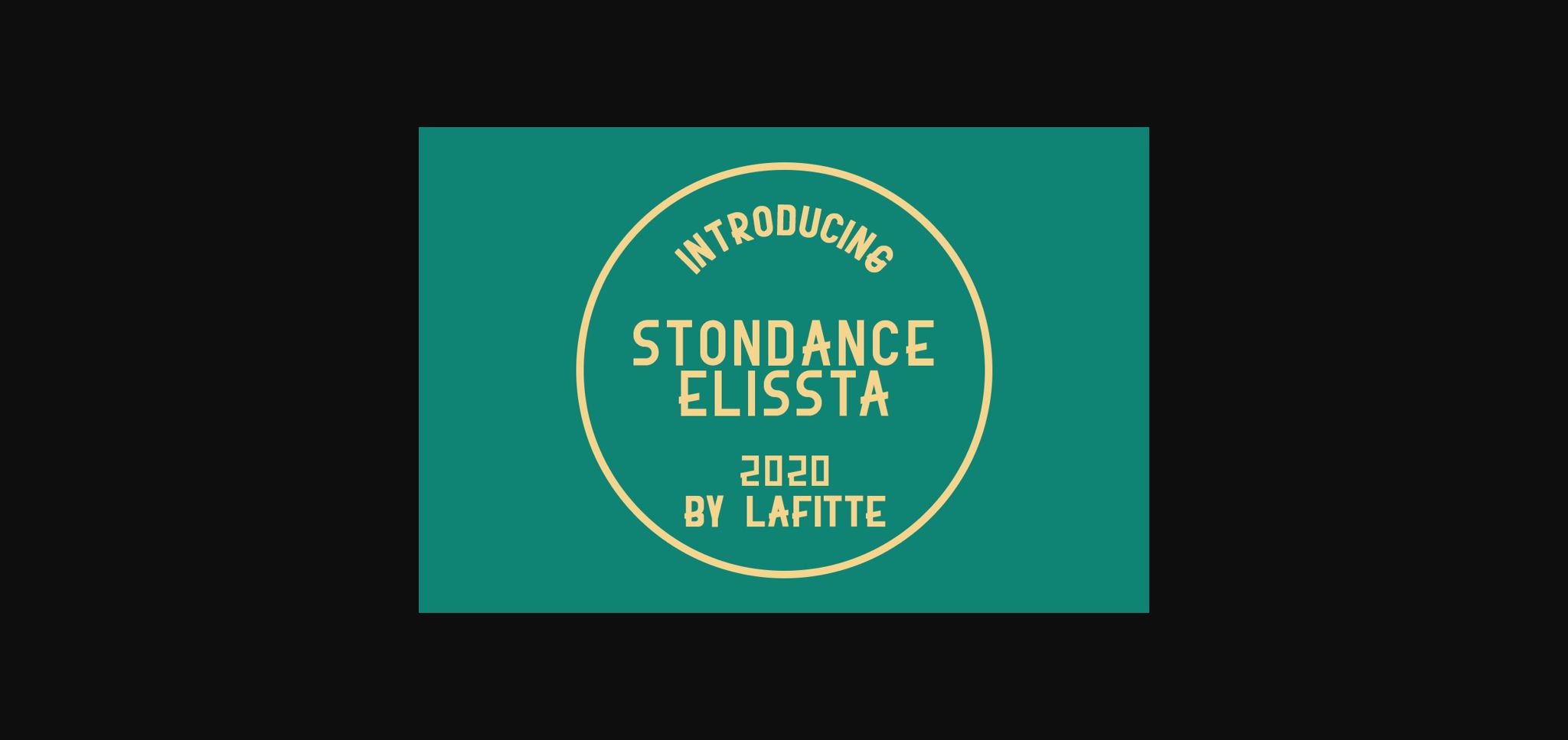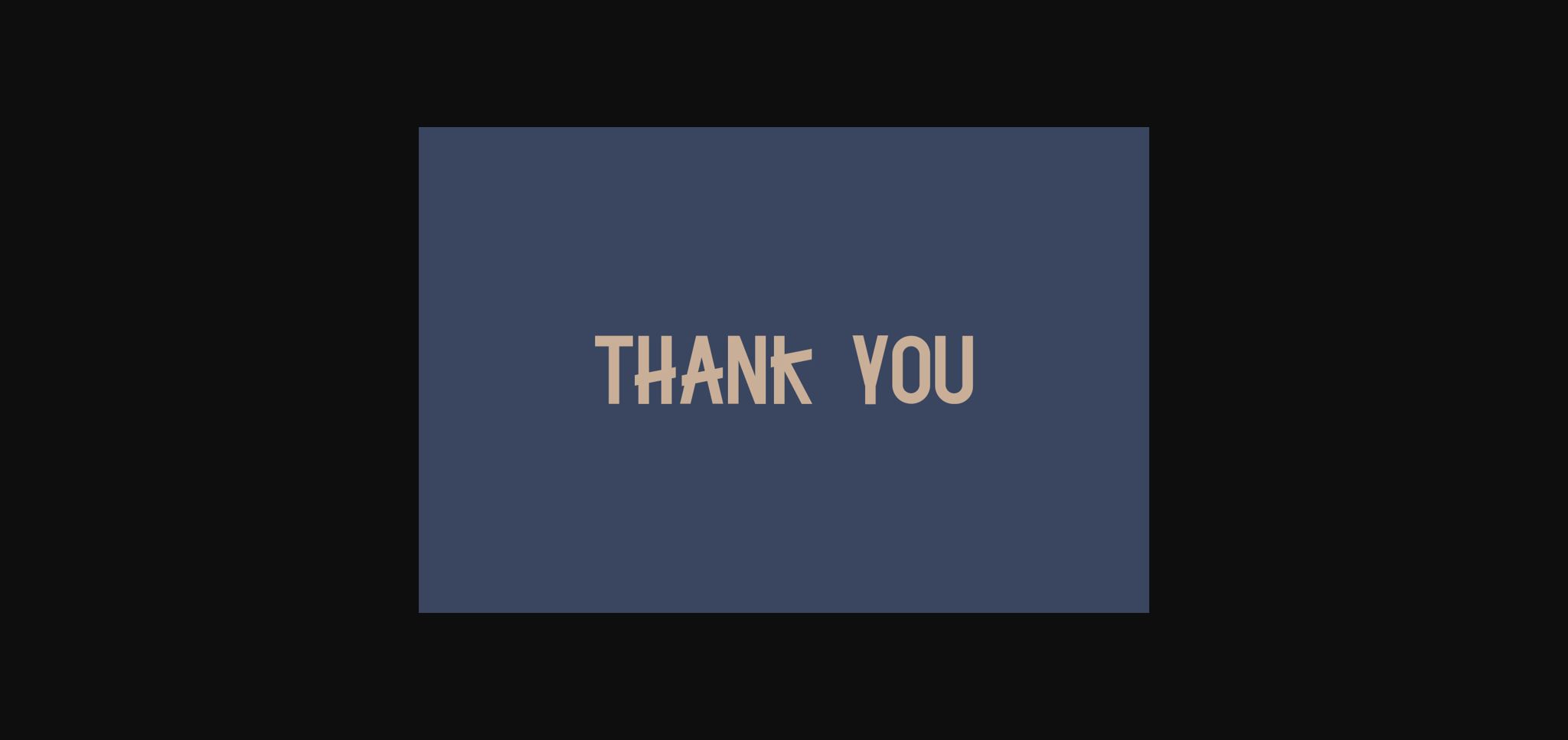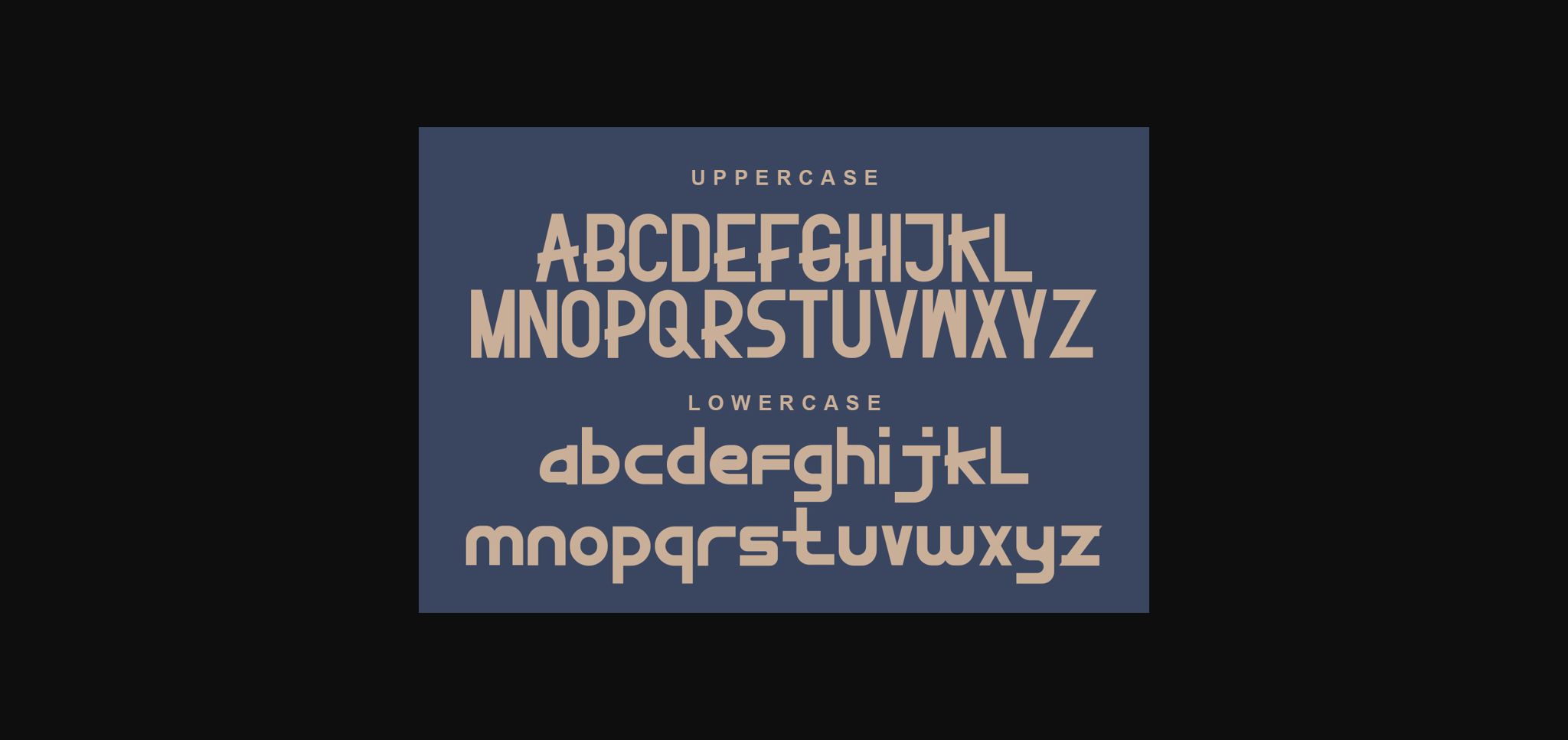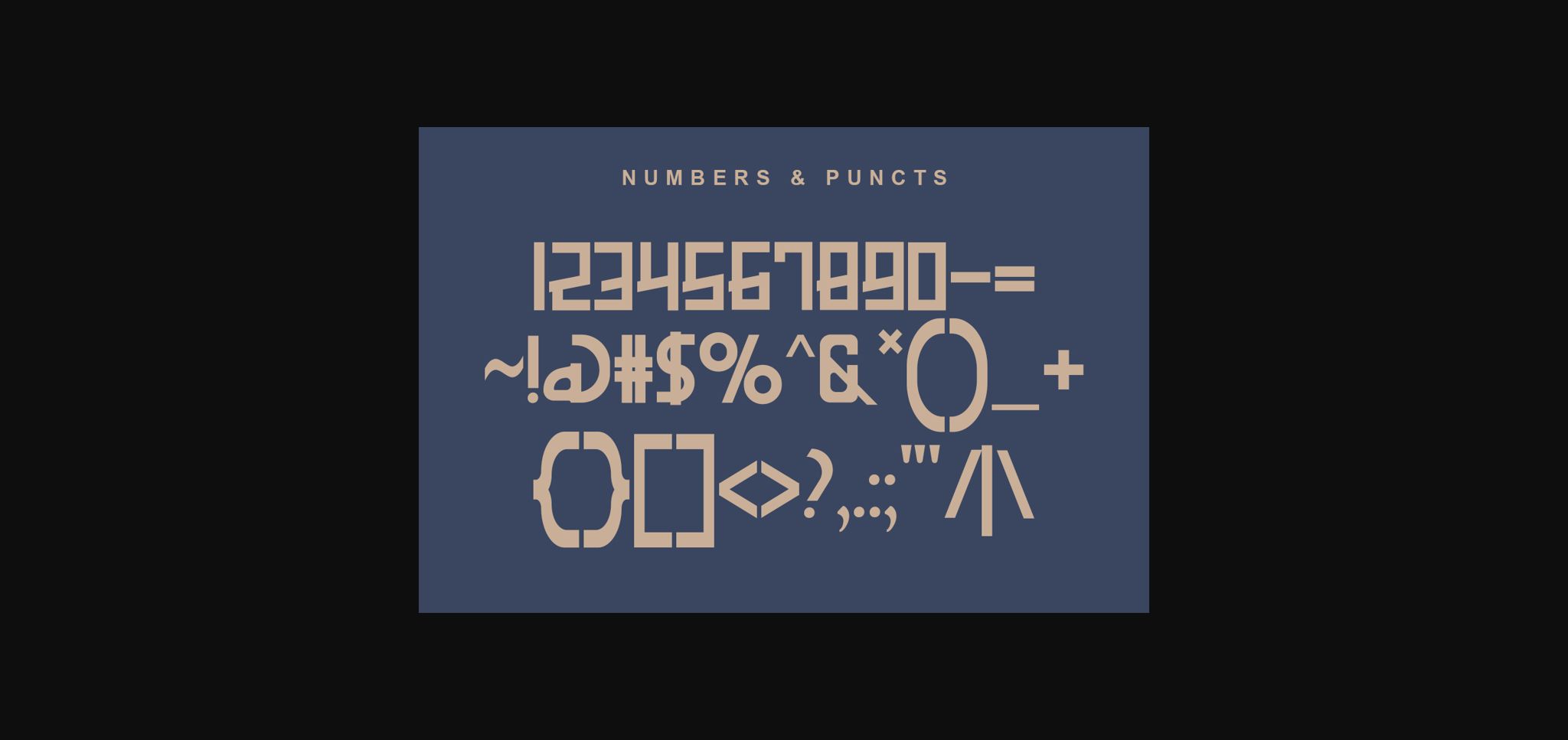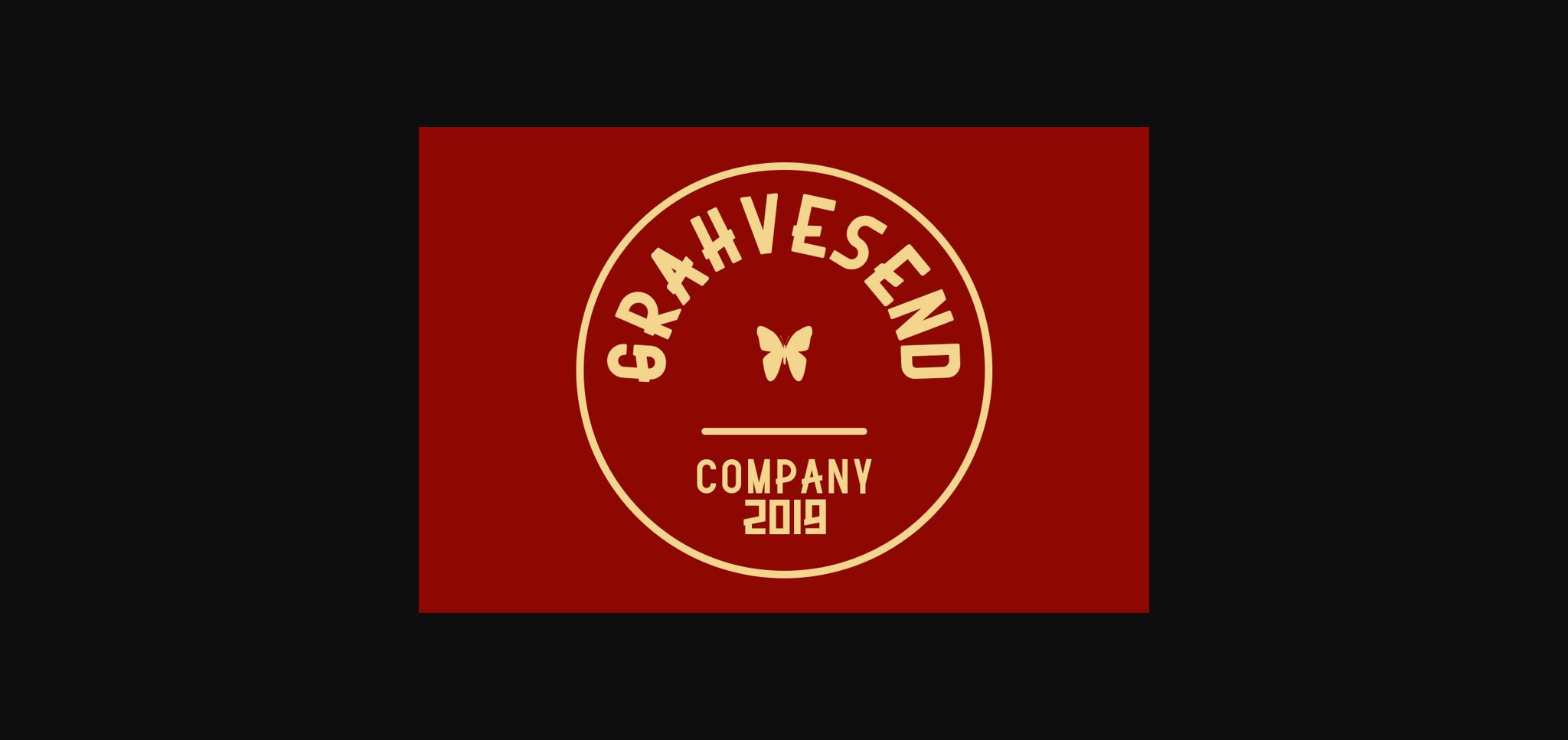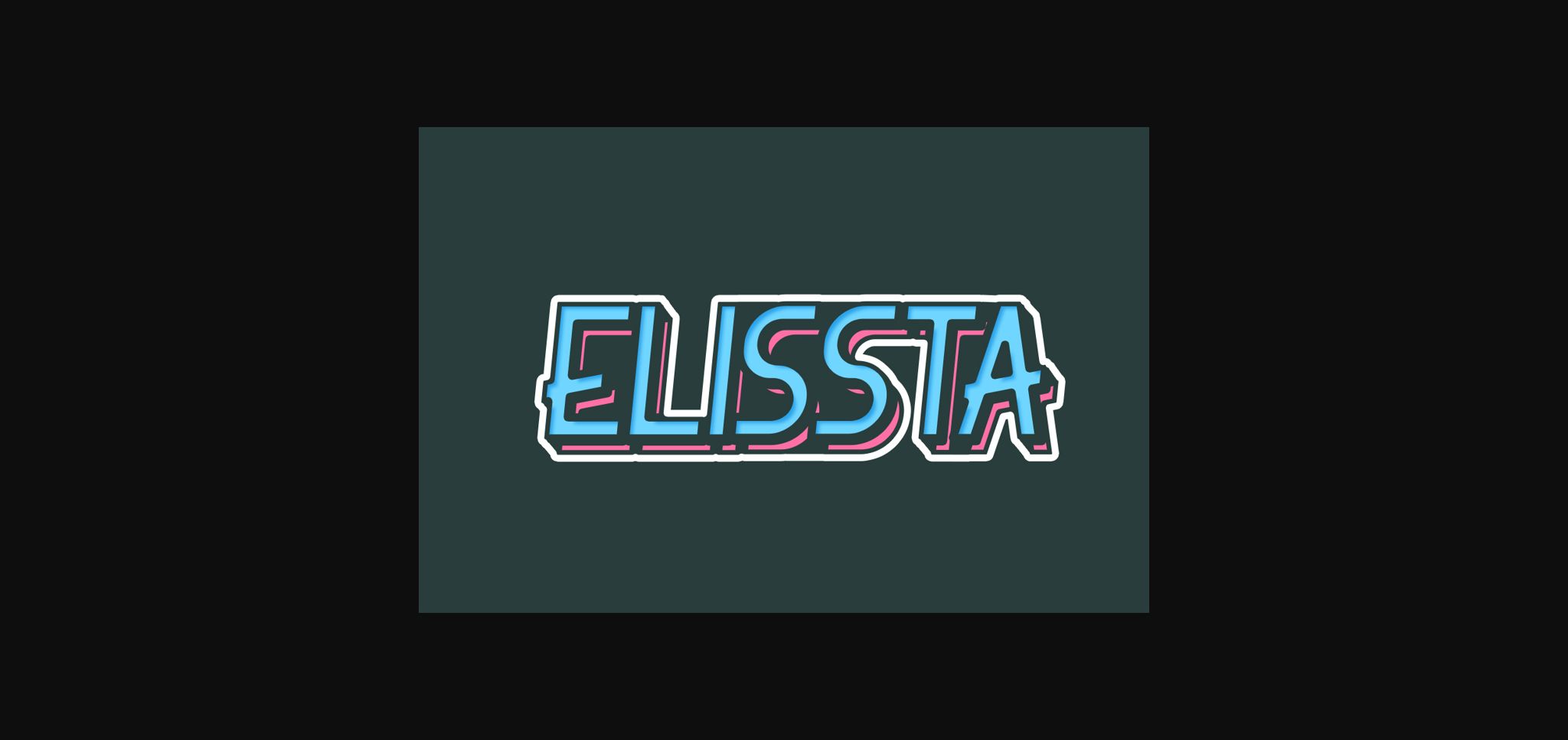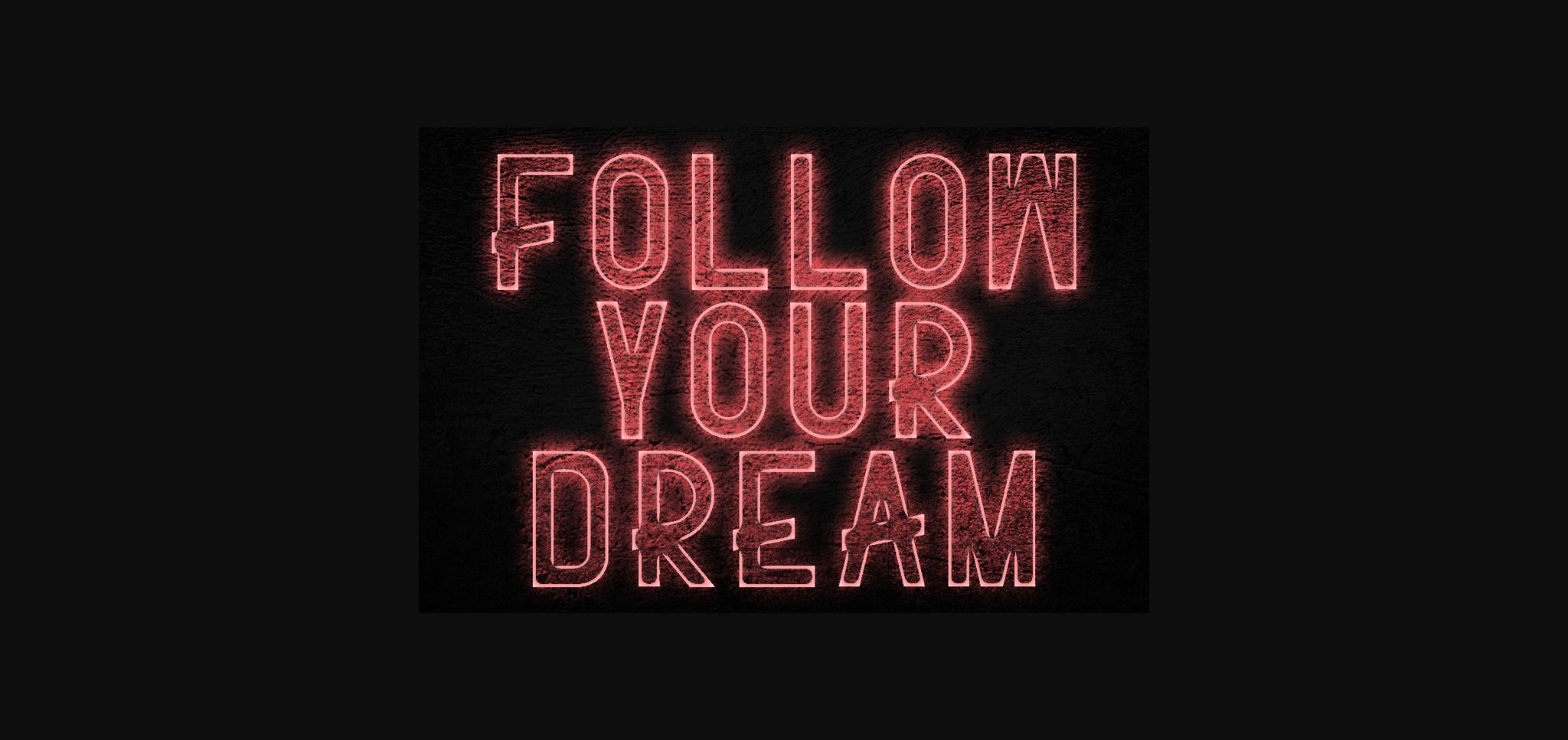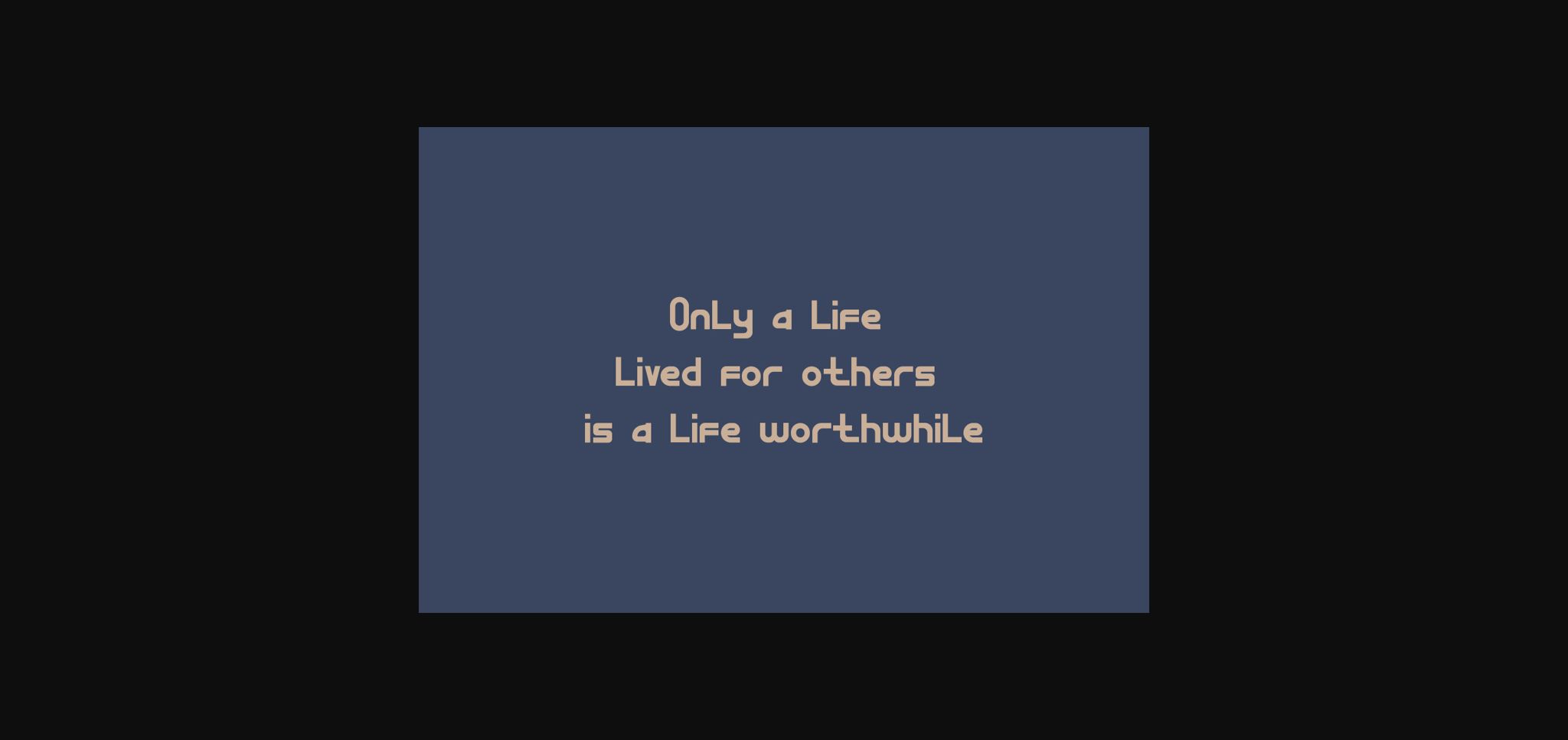
About Stonedance Elissta Font
Stonedance Elissta is a simple and vintage styled sans serif font. This original look will appeal to a wide range of crafty ideas, from letterheads and titles, to stationery.